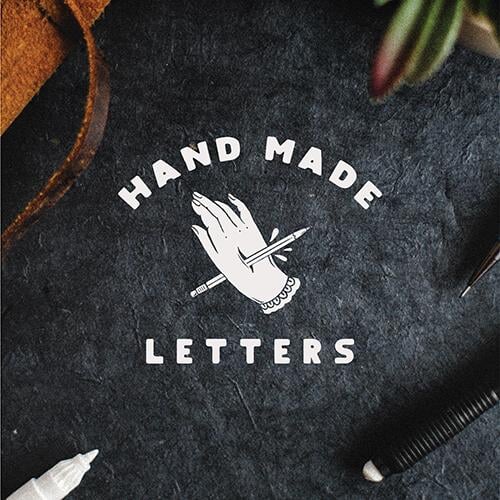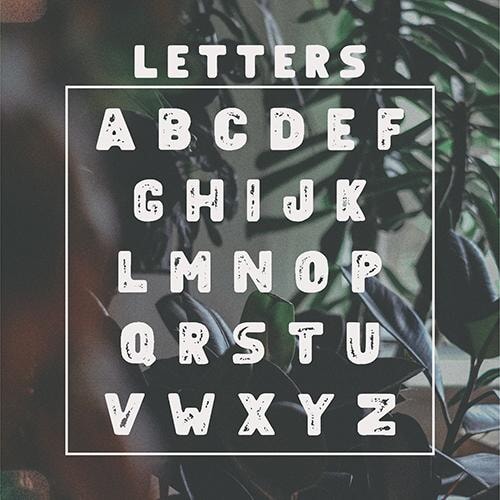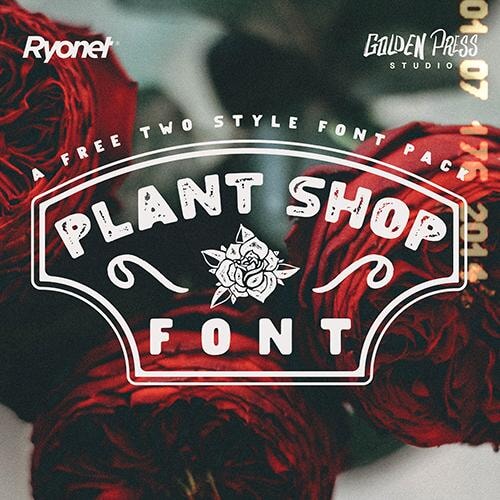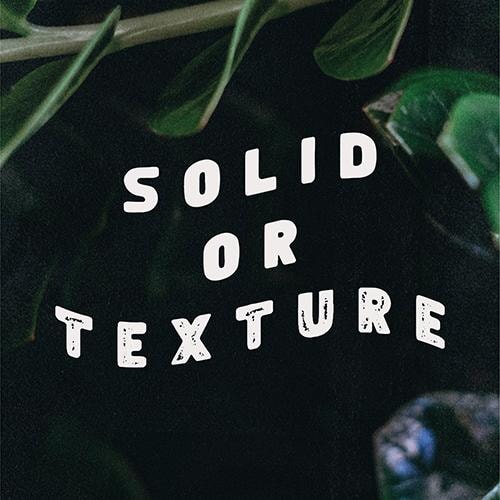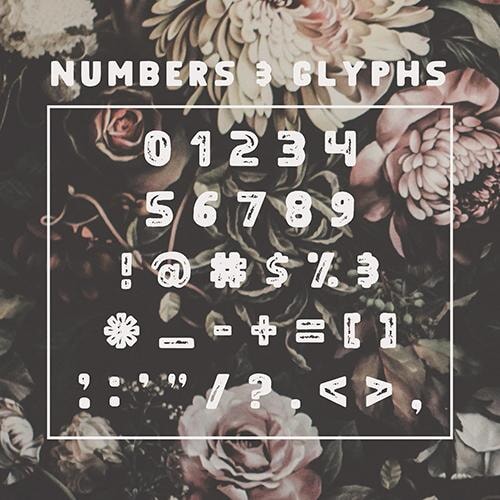
Plant Shop Font (Download Only)
Originally created for a local plant shop (hence the name), the Plant Shop is clean, trendy, and retro. The all-caps, soft-edged, block letters will make your customers do a double-take.With the choice between solid or texture, the font best for logos, headlines, signage, or social media posts. Catch some eyes and make heads roll when people see your next design with the Plant Shop Font.
FEATURES
• Includes two styles: solid and texture